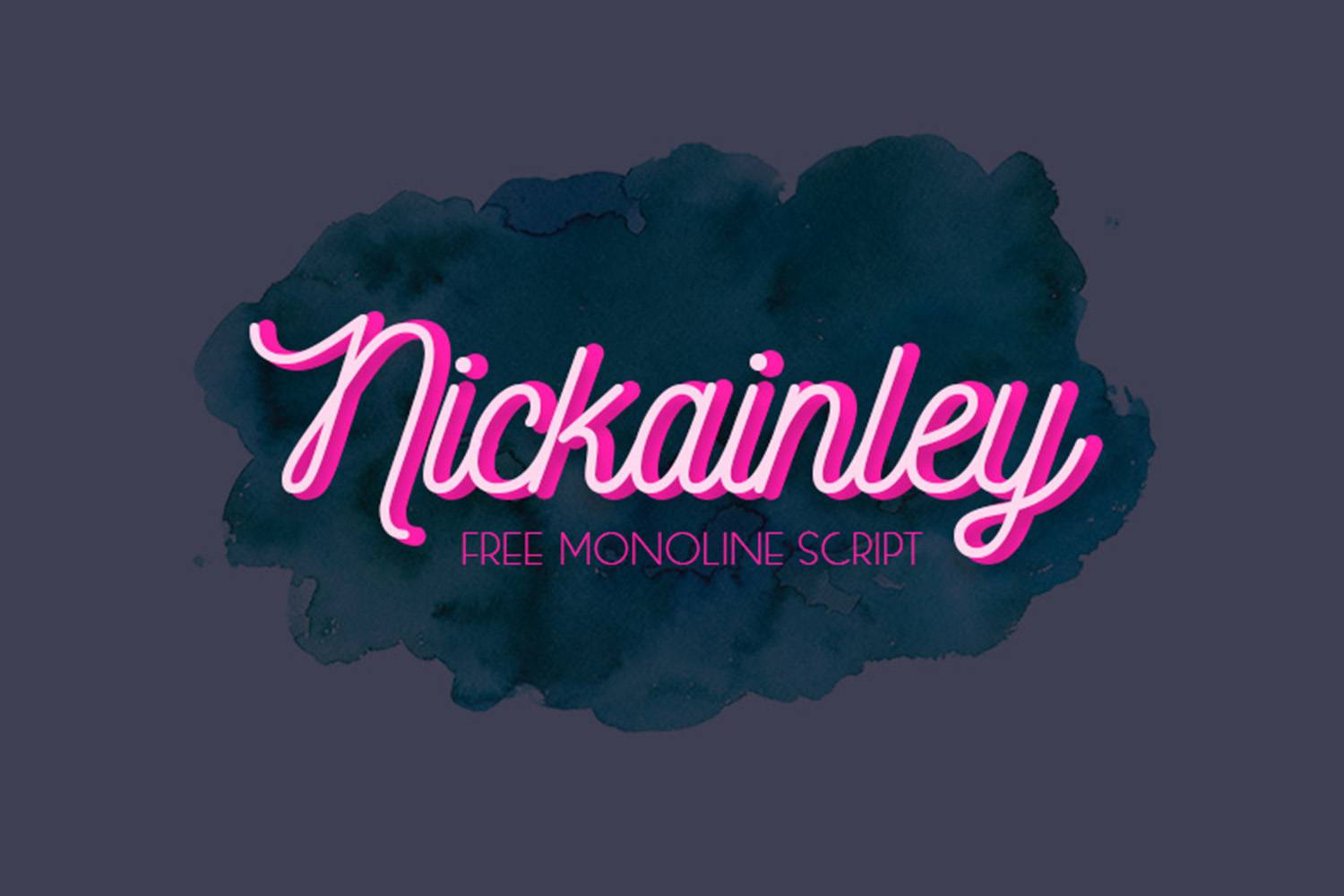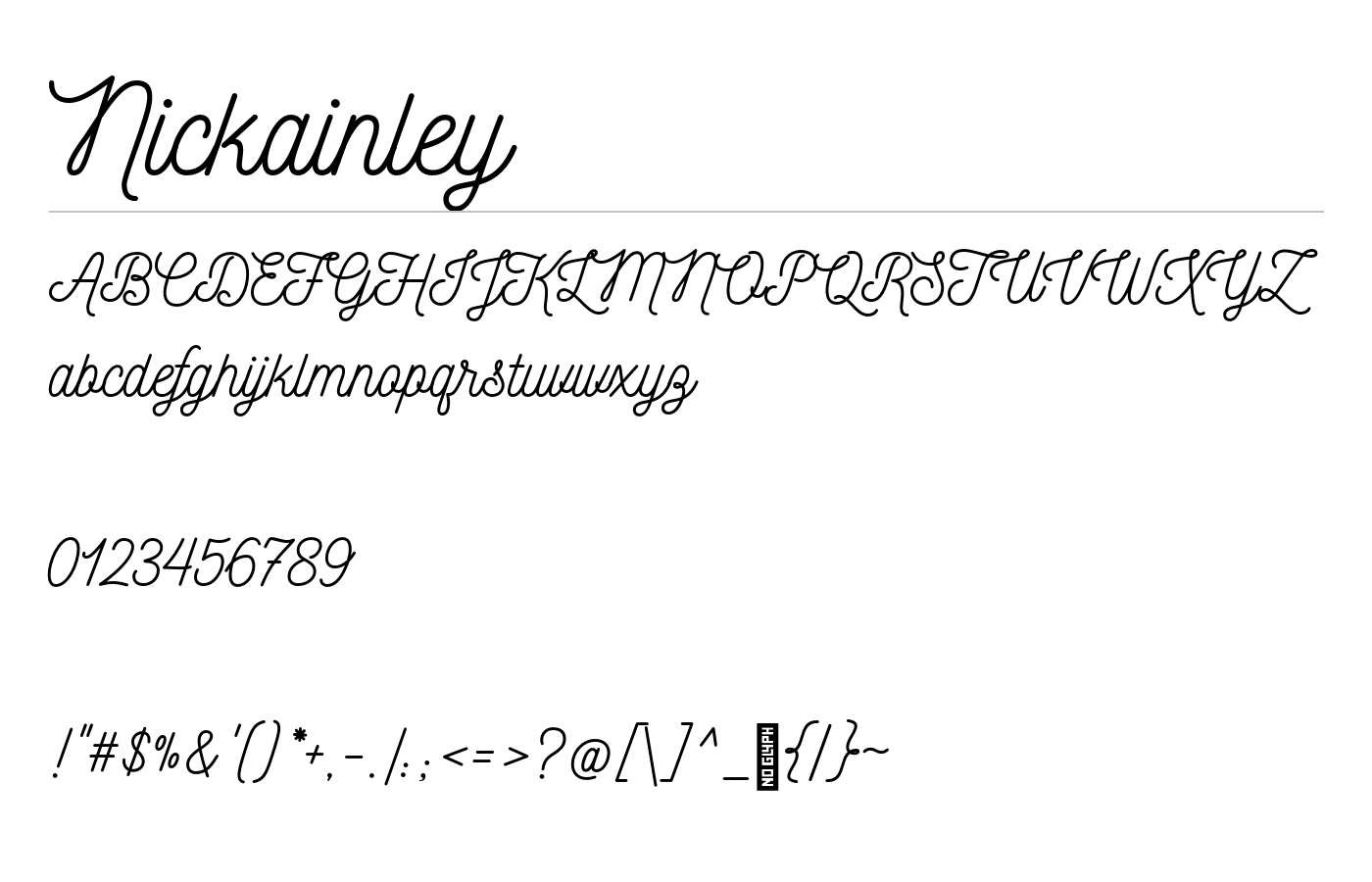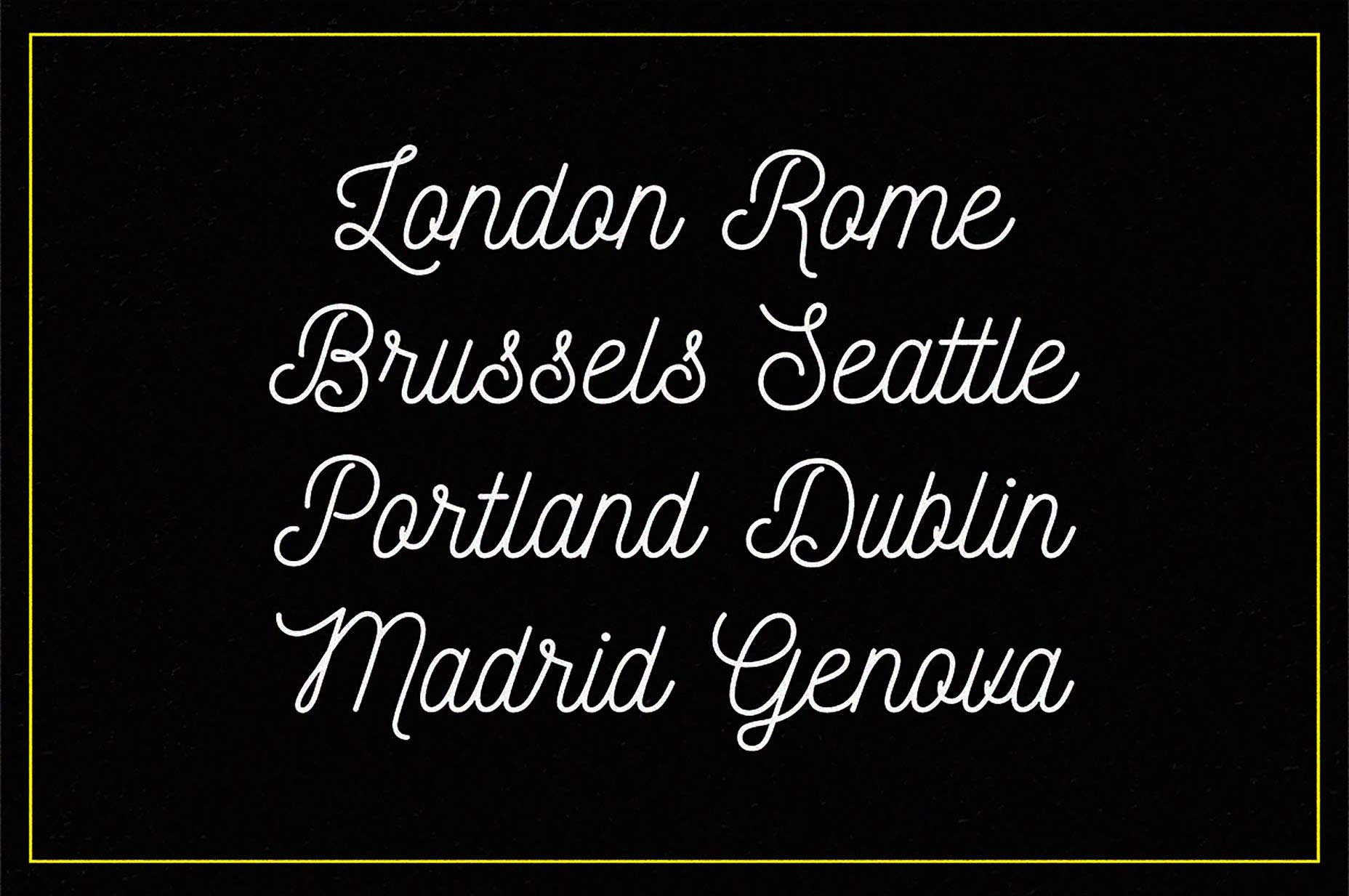
Nickainley is a delicate, lightweight script font with a graceful, handwritten feel that combines elegance with a modern touch. Its slender, flowing letterforms feature smooth, curving strokes and a consistent, airy spacing that makes it perfect for stylish branding, invitations, and feminine editorial work. This font works best in display settings where a refined, personal, and approachable aesthetic is desired.
Nickainley
About Nickainley
| Font family | Nickainley |
| Designer | Seniors Studio |